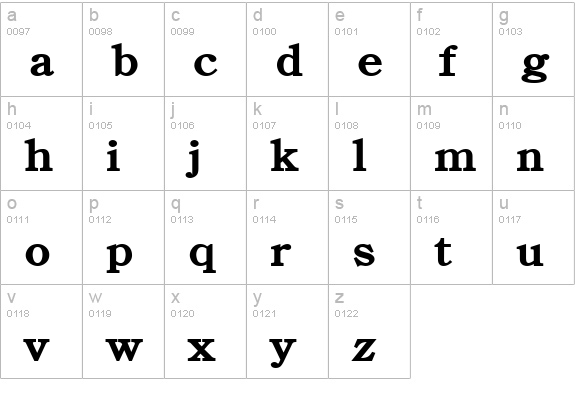
Cento Wide Bold is a strong, high-contrast, extended-width variant in the Cento typeface family \xE2\x80\x94 well suited to headlines, attention-grabbing titles, and strong calls-to-action.
Introducing Cento Wide Bold font, a modern and stylish typeface that exudes confidence and sophistication. With its wide and bold design, Cento Wide Bold makes a powerful statement in any project or design application. This versatile font is perfect for headlines, titles, branding, and more. What sets Cento Wide Bold apart is its perfect balance of elegance and readability, making it suitable for a wide range of design projects. Whether you're creating a sleek logo, eye-catching poster, or striking website header, Cento Wide Bold will help you stand out from the crowd. Best of all, Cento Wide Bold is available for free download at FontsMarket.com. So, why wait? Elevate your designs with this stunning font today and make a lasting impression on your audience.